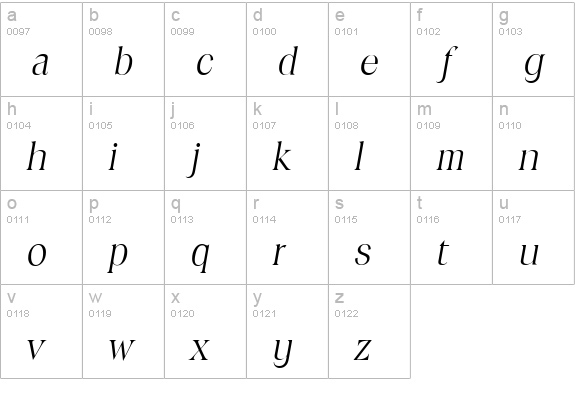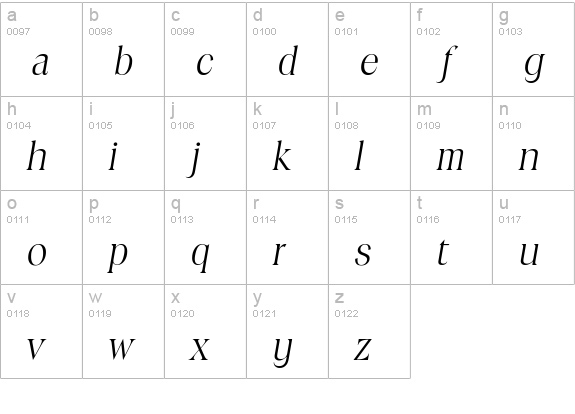
ToledoSerial-Light-Italic is a refined, elegant, italic variant in the ToledoSerial typeface family \xE2\x80\x94 well suited to elegant body text, refined sub-headings, and luxury branding.
ToledoSerial-Light-Italic is a sleek and elegant font that exudes sophistication and modernity. With its delicate italicized design, this typeface adds a touch of refinement to any project or design. The clean lines and graceful curves of ToledoSerial-Light-Italic make it a versatile choice for a wide range of applications, from branding to editorial design. Best of all, ToledoSerial-Light-Italic is available for free download at FontsMarket.com. This means you can easily access this stylish font without any cost, making it a valuable addition to your font collection. Whether you're working on a professional project or a personal creative endeavor, ToledoSerial-Light-Italic is sure to elevate your designs with its timeless appeal and effortless charm. Download it today and enjoy the endless possibilities this font has to offer.